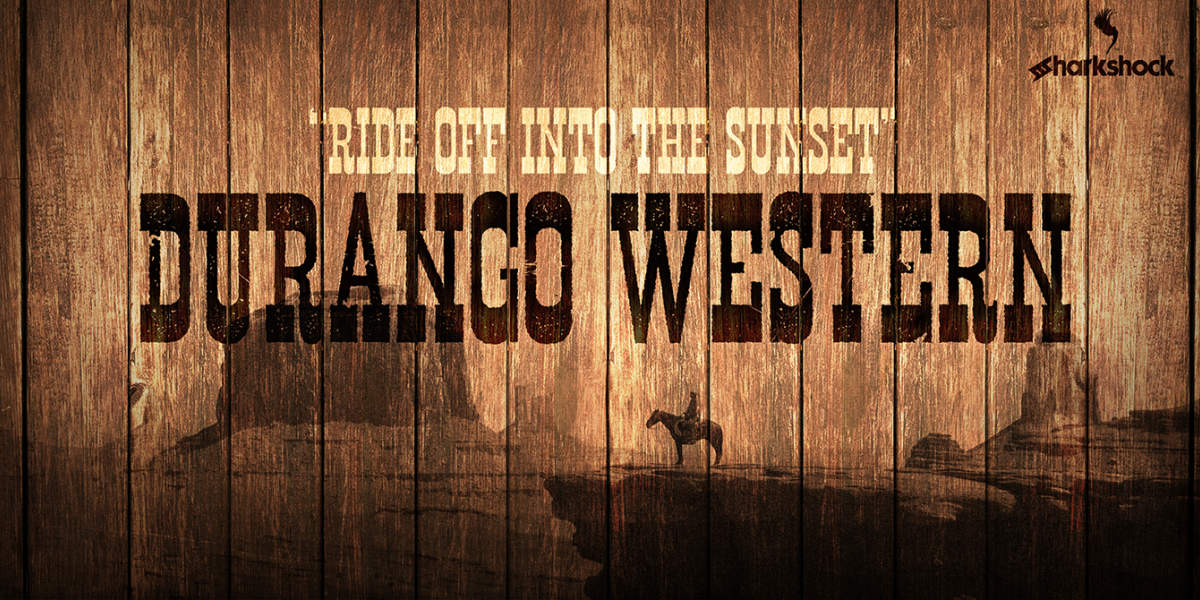
The Durango Western II font is a display sans-serif typeface that is strongly themed for the old-west. This decorative font features a distressed, textured effect that gives the characters a worn and authentic look, fitting the western genre. It is presented in an initial-caps style, using all uppercase letters for a strong visual impact.
Durango Western Eroded